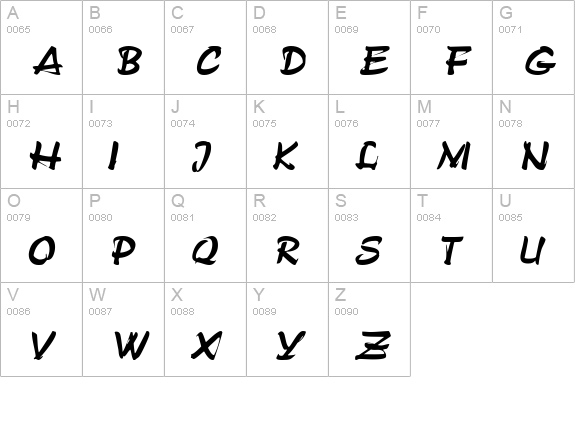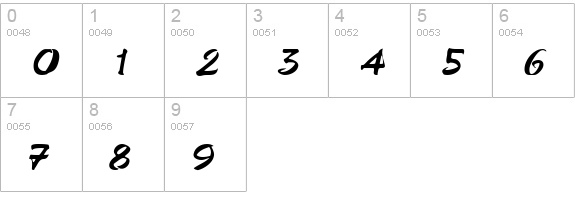
GrunionScript Italic Font Details
GrunionScript Italic is a distinctive, italic variant in the GrunionScript typeface family \xE2\x80\x94 well suited to design and typography projects.
Introducing GrunionScript Italic font, a stunning and elegant typeface perfect for adding a touch of sophistication to your designs. With its gracefully flowing lines and stylish curves, GrunionScript Italic exudes a sense of refinement and charm that is sure to captivate your audience. This beautifully crafted font is ideal for a wide range of design projects, including invitations, wedding stationery, branding, and more. Its italicized style adds a touch of flair and uniqueness to any text, making it stand out from the crowd. And the best part? GrunionScript Italic font is completely free to download at FontsMarket.com. Yes, you read that right – you can elevate your designs with this exquisite font without spending a dime. So why wait? Unlock the potential of your projects with GrunionScript Italic font today!